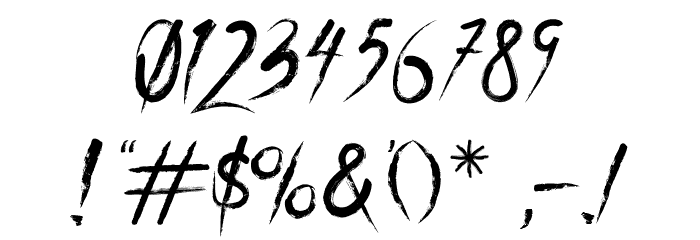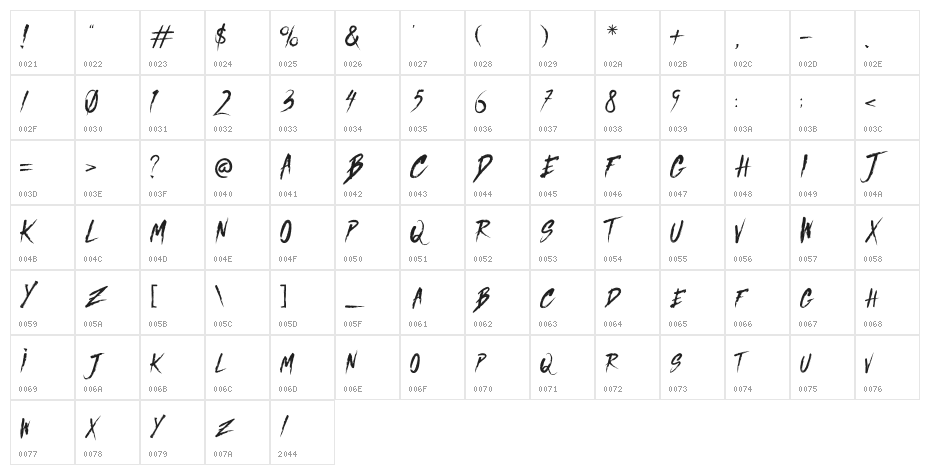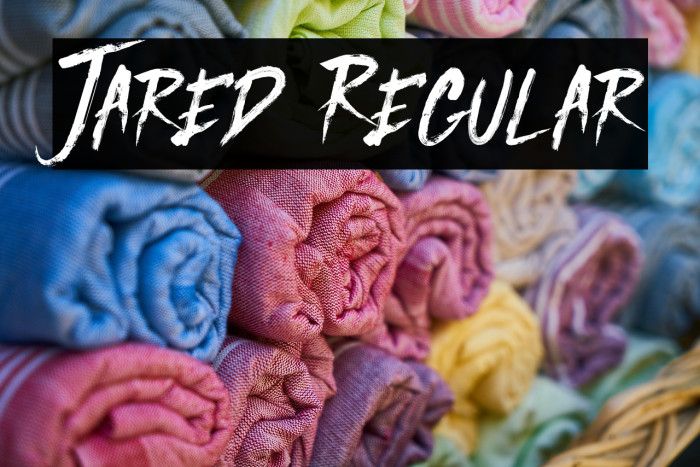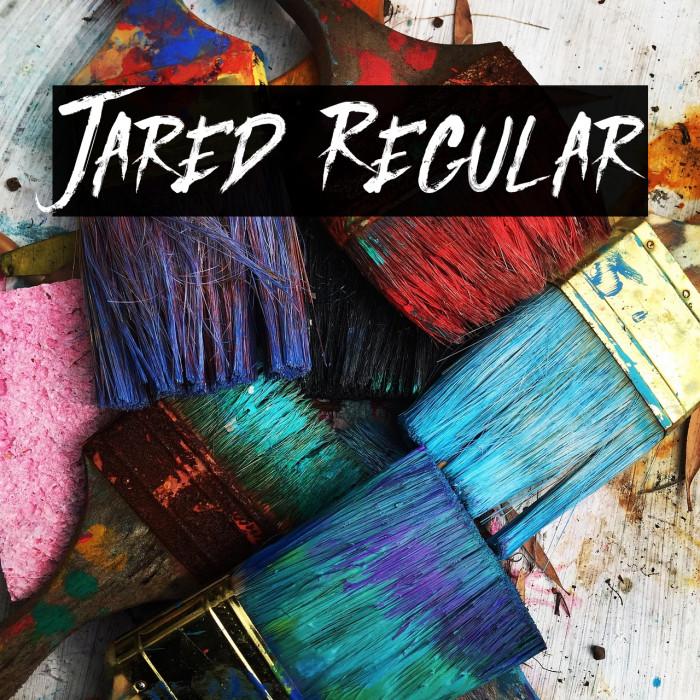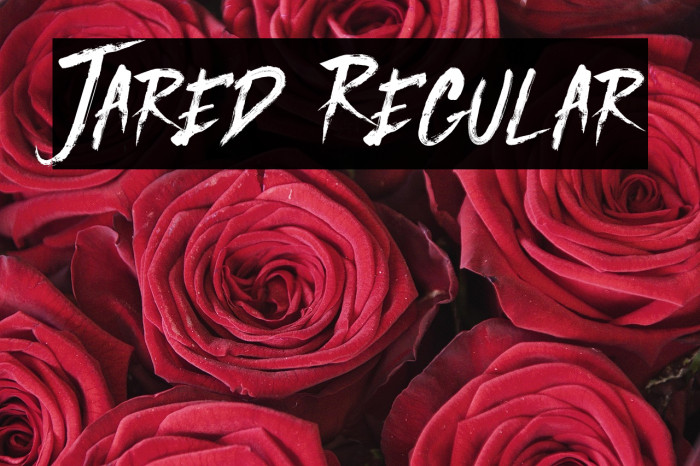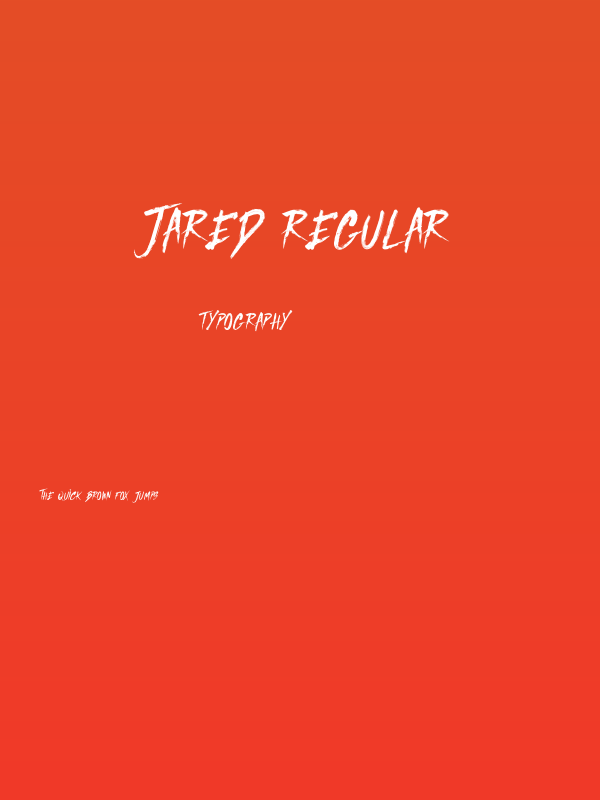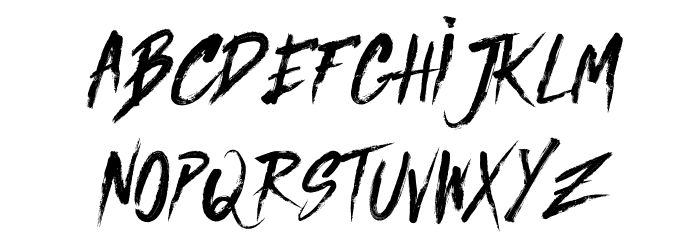
Jared Regular Font
Jared Regular Description
This font features a dynamic and expressive brush style, characterized by bold, sweeping strokes that convey a sense of energy and movement. The letters have a hand-painted appearance, with varying thicknesses and a slightly rough texture that adds to its artistic flair. The uppercase and lowercase letters maintain a consistent style, with sharp angles and fluid curves that create a cohesive look. The numbers and special characters follow the same aesthetic, ensuring versatility across different uses. This font is ideal for projects that require a bold statement or a creative touch.
| Proposed Projects | Ideal for branding, posters, album covers, and creative advertising campaigns. |